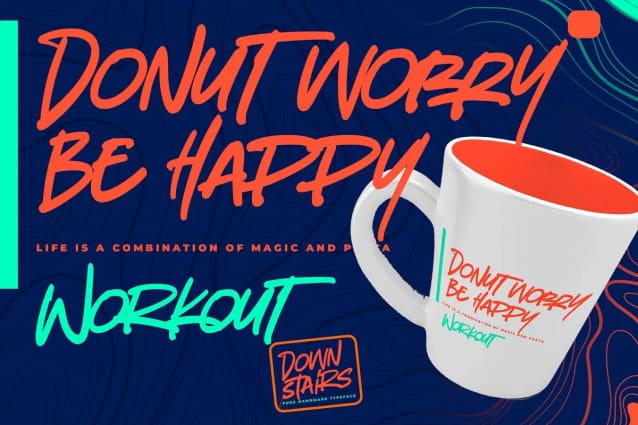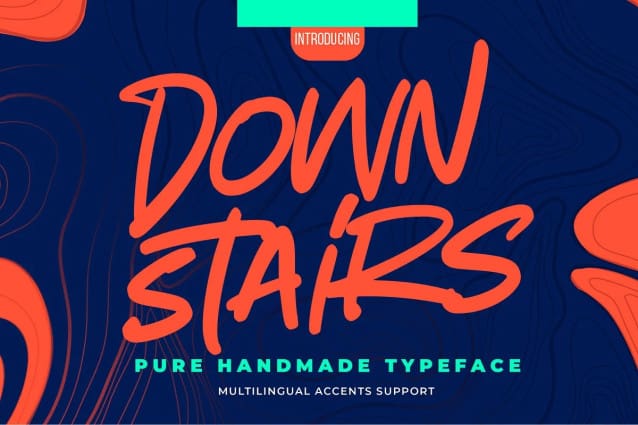
Downstairs Script Font
Downstairs Script Font is Pure Handmade Typeface Authentic that is written casually and quickly. Then scanned and carefully drawn into vector format. This handmade font will make your design has a beautiful natural touch for each details. It is perfect for any design project as Invitation,logo, book cover, craft or any design purposes. That is why Downstairs has charming, authentic and relaxed characteristic more natural look to your text with a more natural look to your text. You can activate Ligature OpenType panel design more interesting. Downstairs is perfect for homeware designs,branding projects, Logo design, Quotes product packaging.